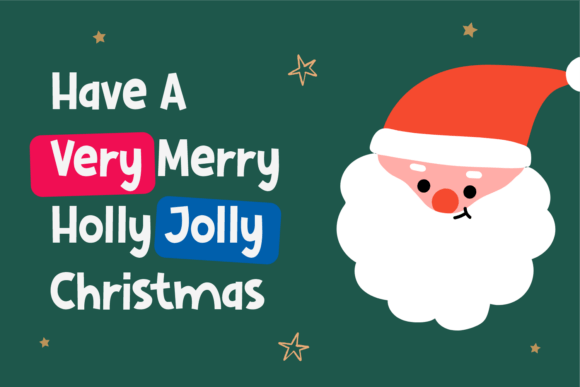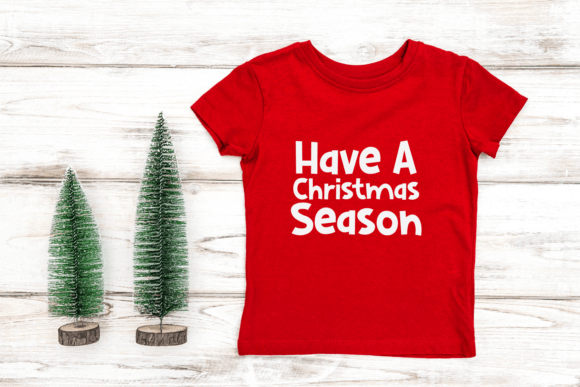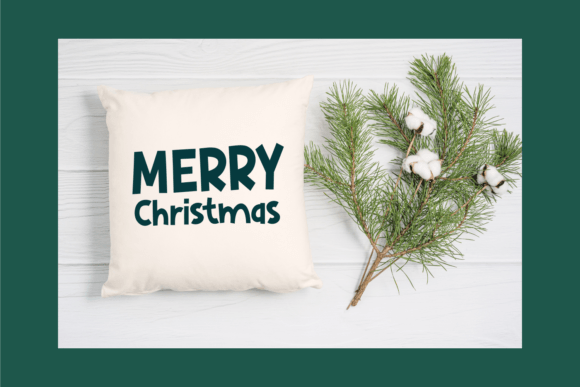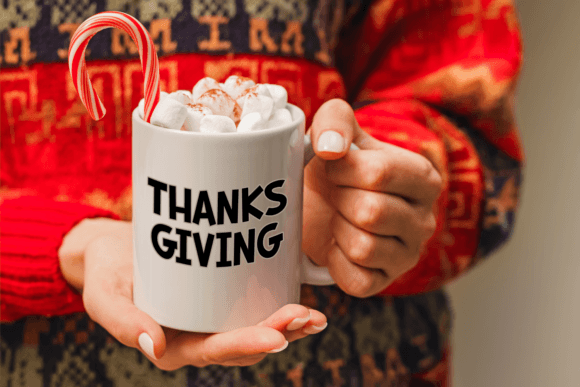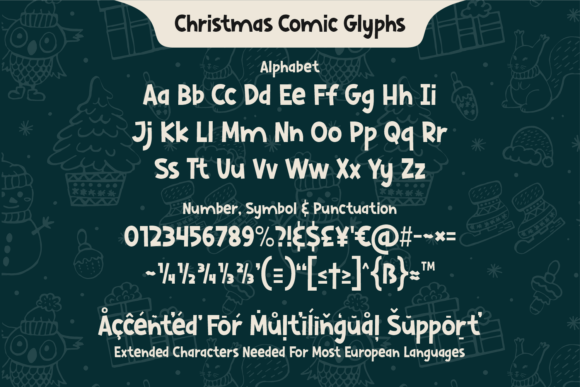
Introduction to Christmas Comic Font
As you sit at your desk, surrounded by scraps of paper, half-finished designs, and a steaming cup of hot cocoa, you know it’s time to get creative. The holiday season is upon us, and with it, the perfect excuse to infuse your work with a dash of festive flair. Whether you’re working on a Christmas card, a holiday-themed website, or a social media campaign, the right font can make all the difference.
That’s where the Christmas Comic Font comes in – a merry, whimsical, and one-of-a-kind design that’s sure to bring a smile to your face and a touch of magic to your creative project. With its flat, comic-style strokes and transparent background, this font is a design resource like no other. And the best part? It’s available for a free download, making it a high-quality addition to any designer’s toolkit.
As a designer, you know the value of a well-chosen font in elevating your work and making it stand out from the crowd. The Christmas Comic Font is an ideal choice for any creative project, from digital designs to print materials, and is sure to be a hit with clients and audiences alike.
Key Features of Christmas Comic Font
- High-quality design: This font features a high-quality, comic-style design that is perfect for adding a festive touch to your holiday projects.
- Unique, hand-drawn style: The Christmas Comic Font features a unique, hand-drawn style that adds a personal touch to any design project, making it stand out from more generic fonts.
Honest Review: Christmas Comic Font
As a designer, I’m always on the lookout for unique and fun fonts to add some personality to my creative projects. The Christmas Comic Font is one such font that caught my eye. Let’s dive into my honest review of this design resource.
- Unique and playful style: The font’s comic book-inspired design makes it perfect for adding a touch of whimsy to your projects.
- High quality: The font is crisp and clear, making it suitable for both digital and print designs.
- Limited character set: The font only includes a basic set of characters, which may not be suitable for complex projects.
- Transparent background issues: I experienced some issues with the font’s transparent background, which may require some additional design work to resolve.
Overall, I think the Christmas Comic Font is a great addition to any designer’s toolkit. While it may have some limitations, its unique style and high quality make it a valuable resource for creative projects. With some careful planning and design work, this font can add a lot of personality to your designs.
Tips for Getting the Most Out of Christmas Comic Font
Use a transparent background to create a clean and modern look, or use it as a design resource for your next creative project. You can also use it to create high-quality graphics for social media or marketing materials.
Use the Christmas Comic Font for holiday-themed designs, such as Christmas cards, gift tags, or social media posts. You can also use it to add a touch of whimsy to your branding or marketing materials.